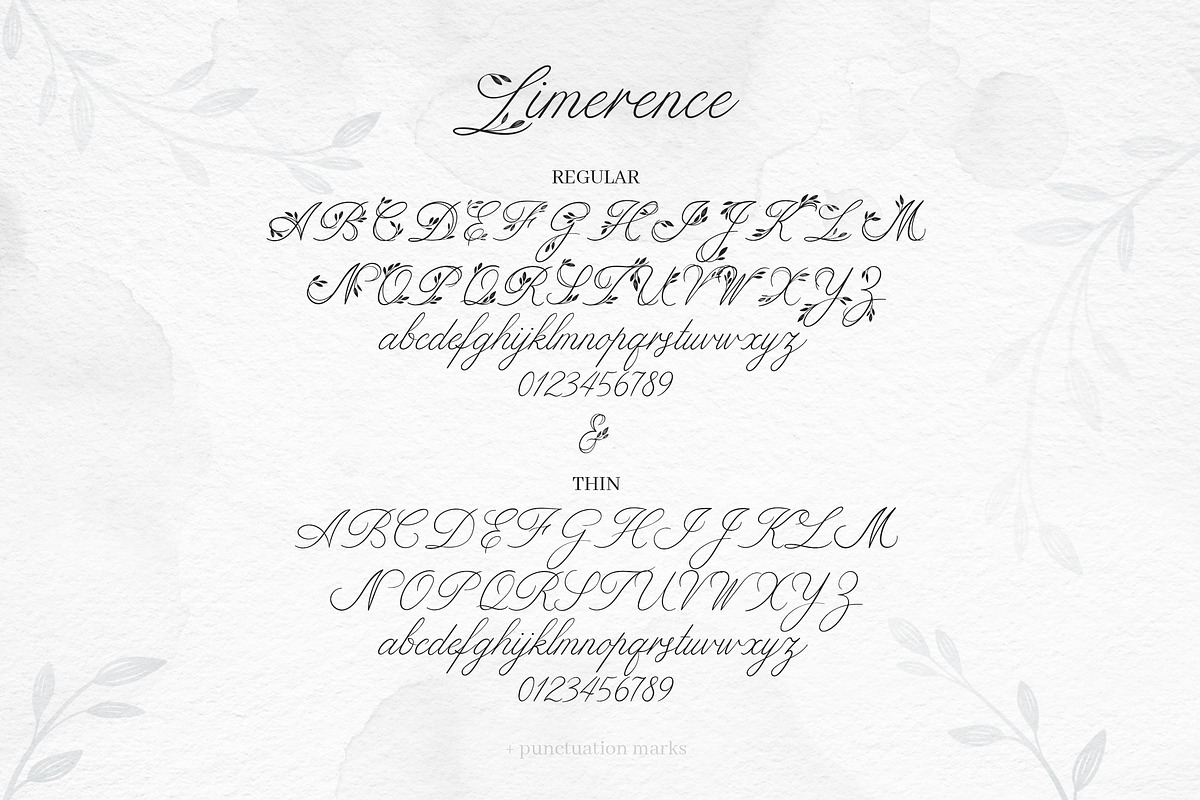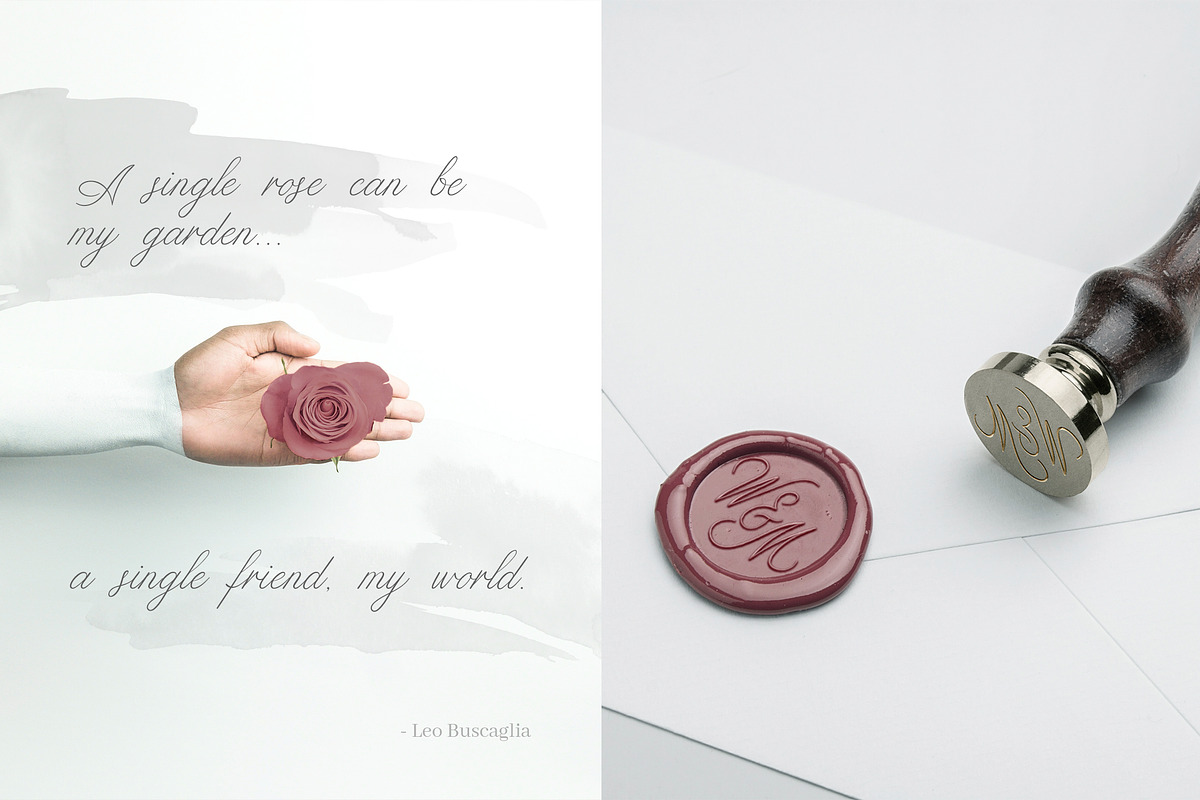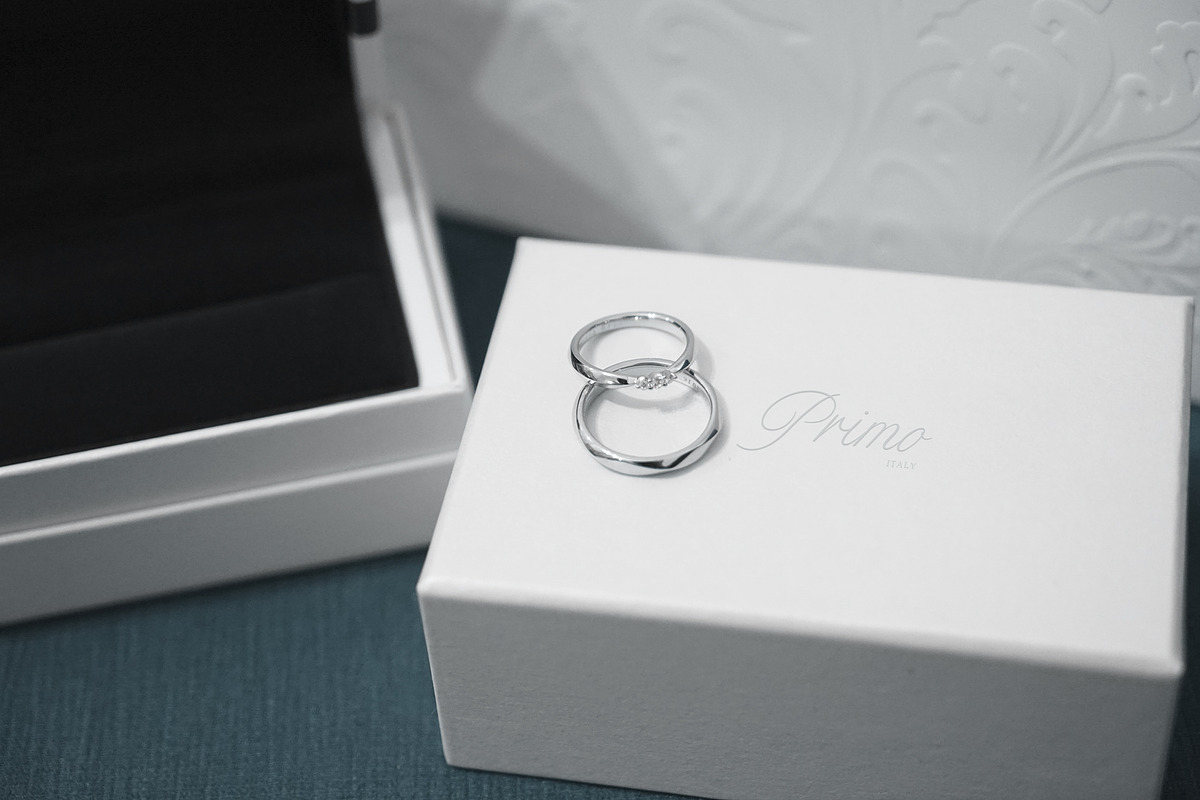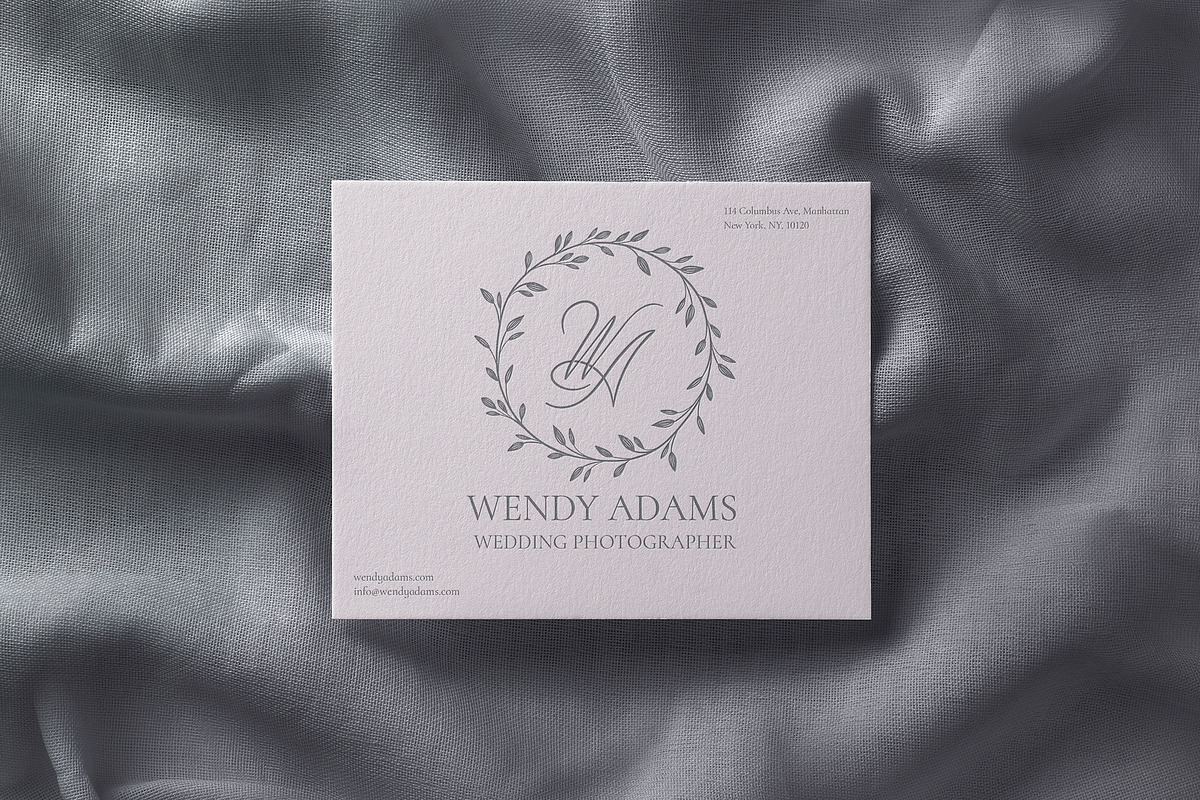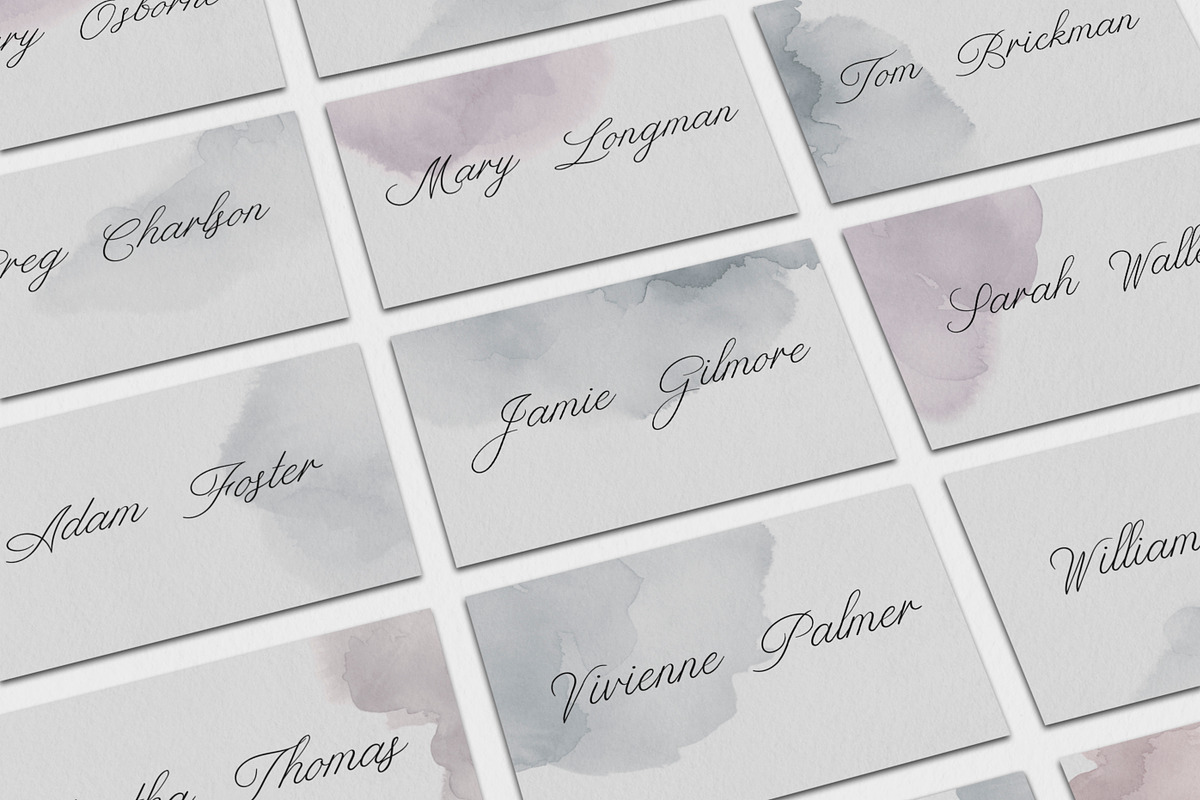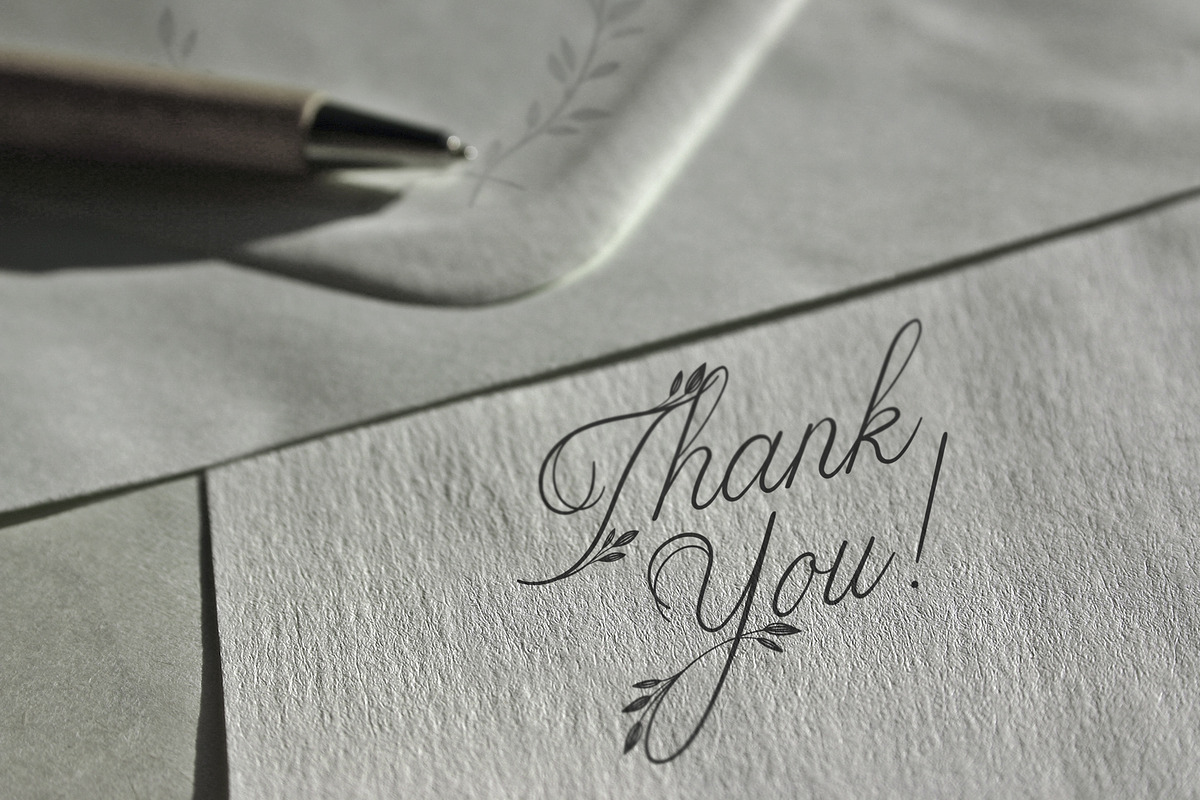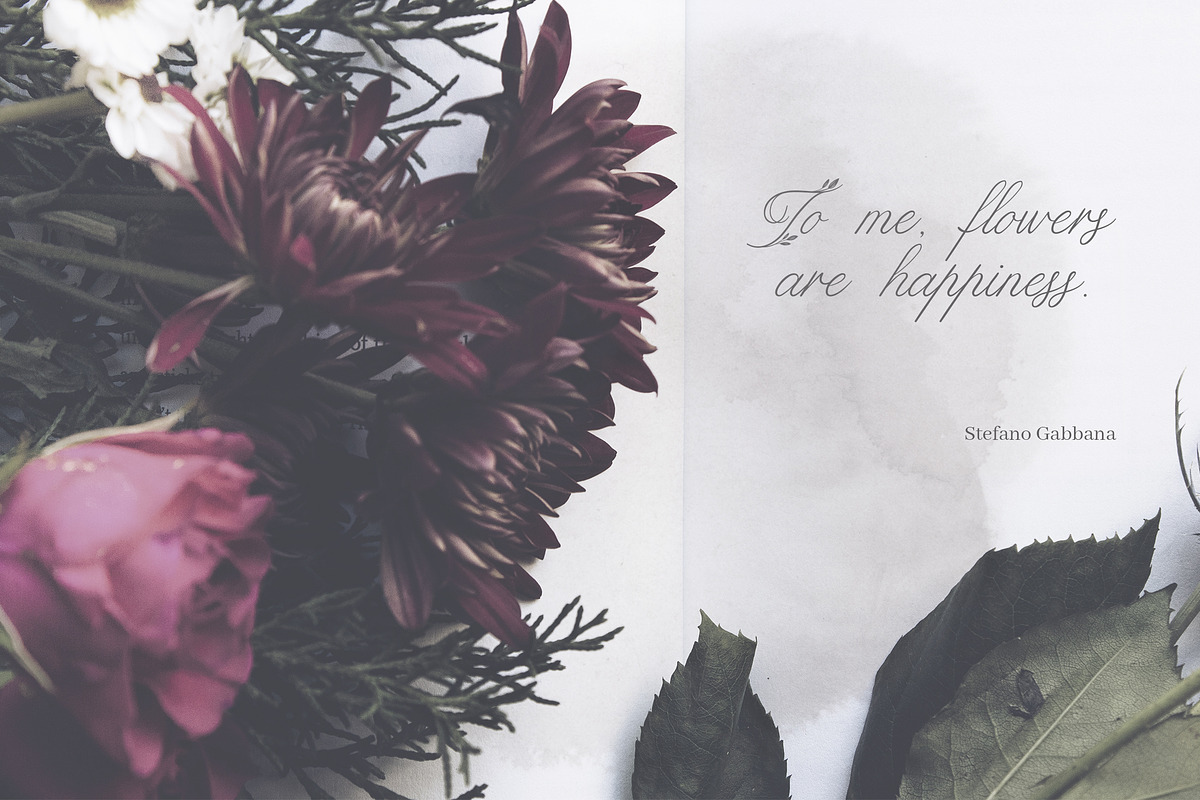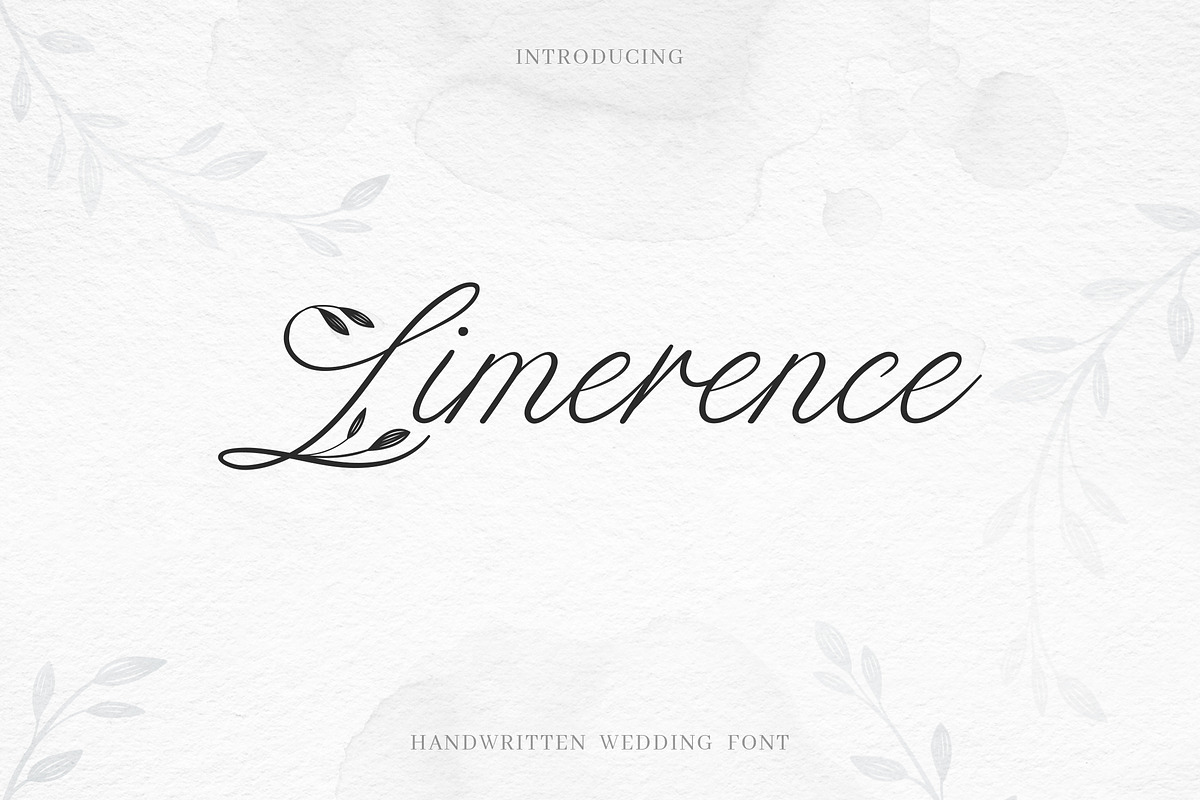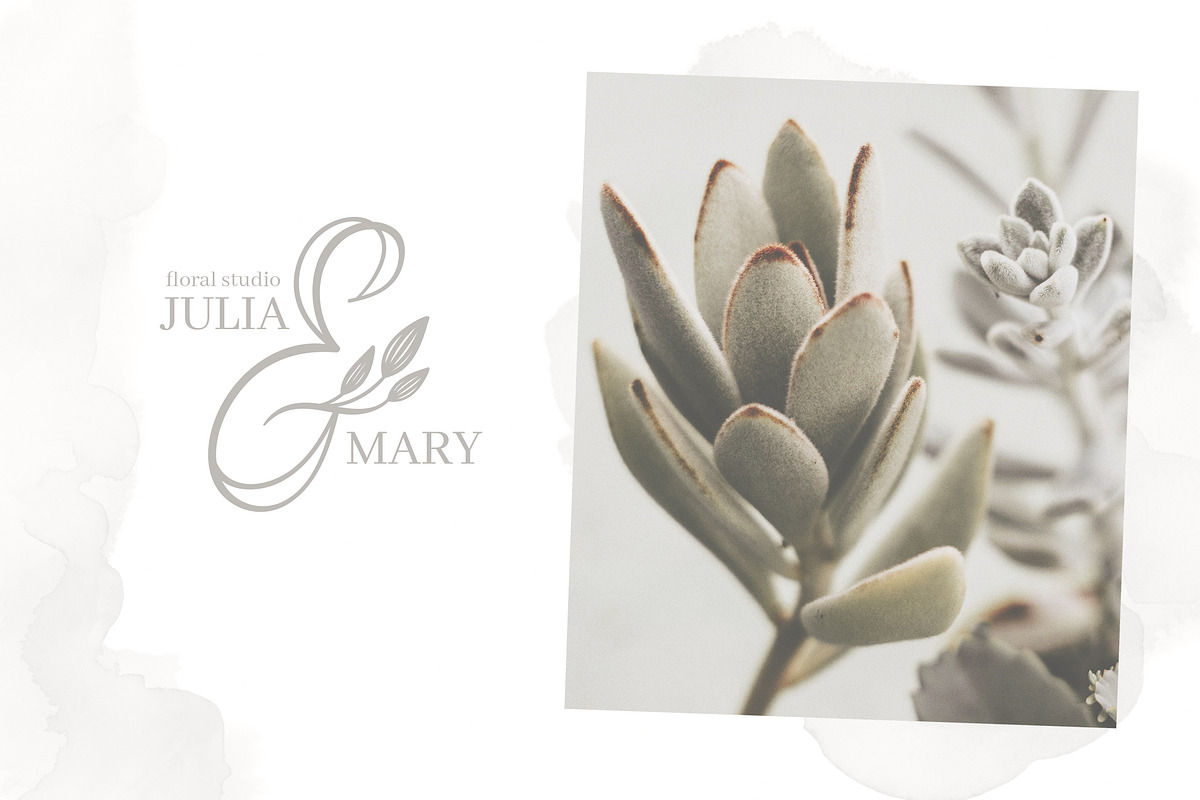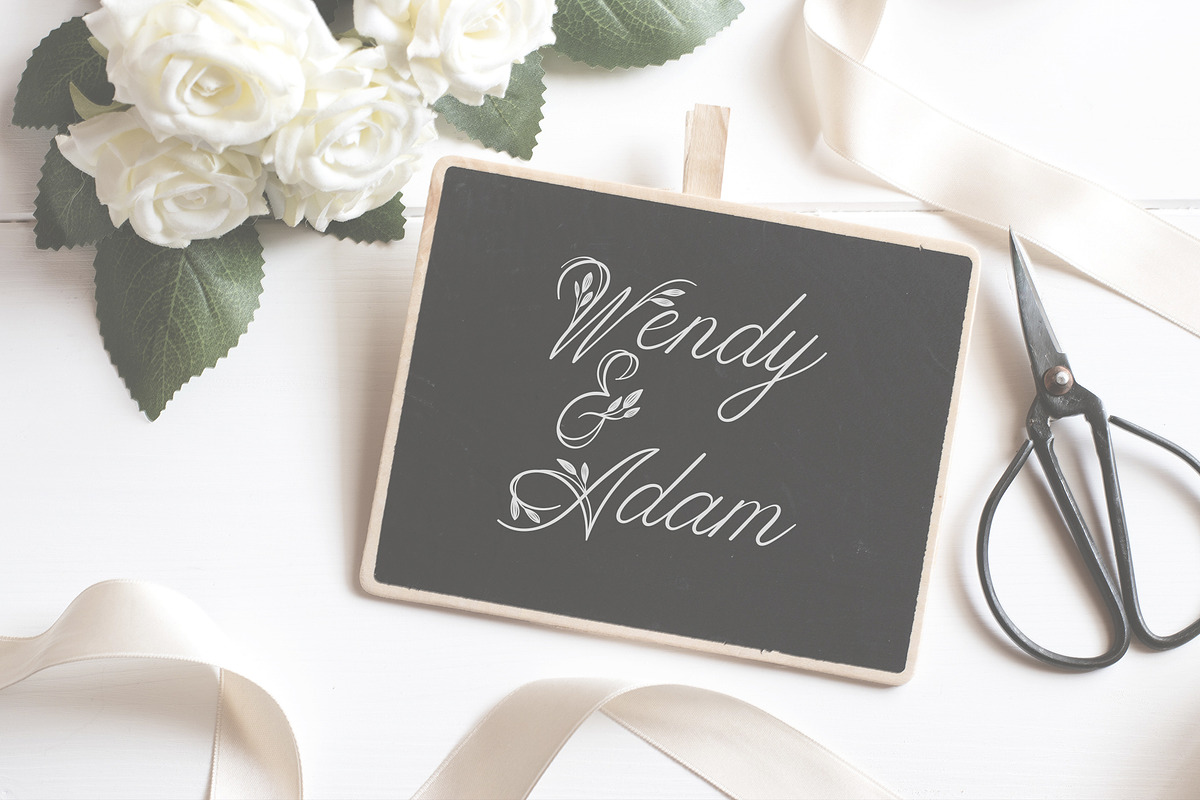
I’m pleased to introduce my new handwritten botanical font Limerence.
Limerence comes in two styles: Regular and Thin .
Limerence Regular is an elegant, decorative, feminine font. Floral uppercase letters are ideal for your wedding monograms and logos. Use this font for wedding invitations, branding, packaging, magazines, florist shops, social media, restaurant menus, greeting cards, headers and many more.
Limerence Thin is a calligraphic font. It's perfect for wedding design projects, instagram, invitations, signatures, watermarks, logos, letterpress address, titles, birthday invitations, handwriting and more.
UPDATE 1: Floral numbers are available now!
UPDATE 2: Limerence has now been updated to support Spanish and German (Á Ä Ç É Í Ñ Ó Ö Ú Ü ẞ á ä ç é í ñ ó ö ú ü ß º ª).
UPDATE 3: Limerence has now been updated to support Polish language (Ą Ć Ę Ł Ń Ó Ś Ź Ż ą ć ę ł ń ó ś ź ż).